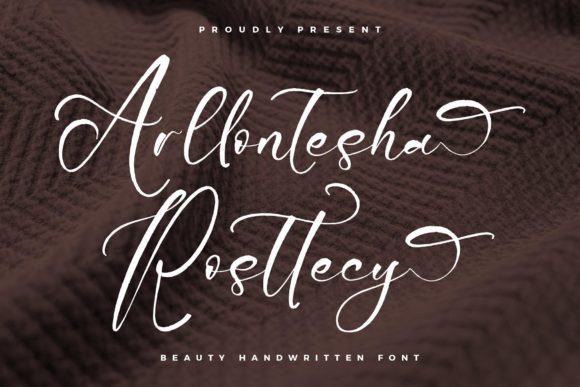
The Quest for the Perfect Font: Discovering Arllontesha Rosttecy
Ah, the eternal struggle of finding the perfect font for our design projects. I still remember the time I was working on a branding project for a luxury homeware client, and I just couldn’t seem to find a font that captured the essence of their high-end aesthetic. That was until I stumbled upon Arllontesha Rosttecy, a stunning handwritten font from Glorytype Studio.
First Impressions: A Beauty of a Font
Arllontesha Rosttecy is a true gem, exuding elegance and sophistication with every curve and flourish. This beautiful font is perfect for a wide range of projects, from logos and branding to homeware designs, product packaging, and more. Its versatility knows no bounds, making it an excellent addition to any designer’s toolkit.
- ✨ Elegant and refined script style, perfect for luxury brands
- 💫 Beautifully crafted to add a touch of sophistication to any project
- 🎨 Extensive range of OpenType features, glyphs, and stylistic alternates
While Arllontesha Rosttecy is an exceptional font, there are a few minor quirks to be aware of:
- 🤔 Limited suitability for very bold or attention-grabbing designs, due to its elegant nature
If you’re looking for similar fonts or alternatives to Arllontesha Rosttecy, here are a few options to consider:
- Carolyna Pro: A elegant, refined script font with a similar feel to Arllontesha Rosttecy. Ideal for luxury brands and high-end designs.
- Adorn: A beautiful, ornate script font with a more whimsical feel. Suitable for creative projects, such as packaging and branding.
- Alex Brush: A lovely, handwritten font with a more casual, approachable feel. Perfect for designs that require a personal touch.
- Lobster: A stunning, elegant script font with a more formal, sophisticated feel. Ideal for high-end designs, such as luxury branding and packaging.
The Story Behind Arllontesha Rosttecy
Arllontesha Rosttecy was crafted with love and care by the talented designers at Glorytype Studio. While the exact inspiration behind the font is unclear, it’s evident that the team poured their hearts into creating a truly exceptional typeface. Whether you’re a designer, crafter, or creative hobbyist, Arllontesha Rosttecy is sure to become a favorite in your collection.
Q: What type of projects is Arllontesha Rosttecy suitable for?
A: Arllontesha Rosttecy is suitable for a wide range of projects, including logos, branding, homeware designs, product packaging, mugs, quotes, posters, shopping bags, t-shirts, book covers, name cards, invitation cards, greeting cards, labels, photography, watermarks, and more.
Q: Is Arllontesha Rosttecy easy to read?
A: Yes, Arllontesha Rosttecy is highly legible, even at smaller font sizes, making it suitable for a wide range of applications.